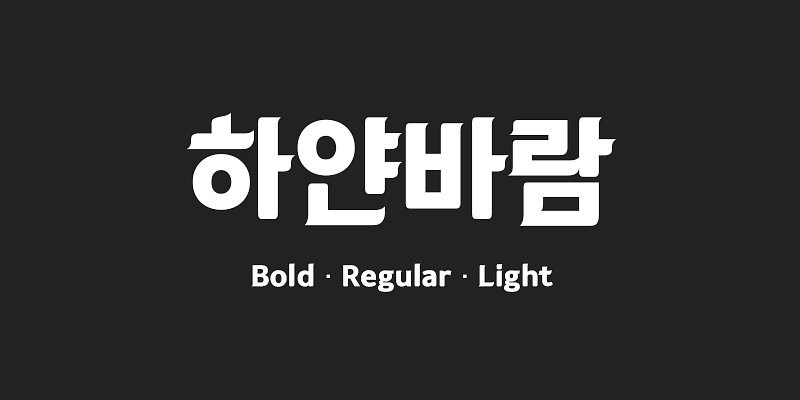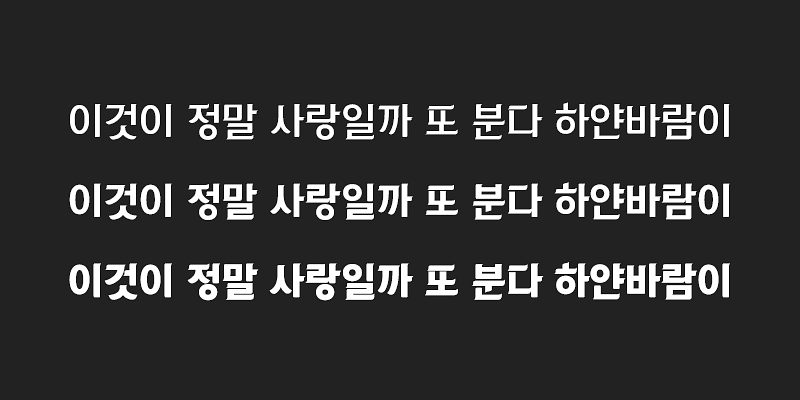
210 Hayanbaram is a font with characteristic serifs that looks like the letters are blowing in the wind. All the serif details were carefully refined so each weight looks like it has the same effect. Some strokes are slightly separated from each other to give the font a distinct personality.